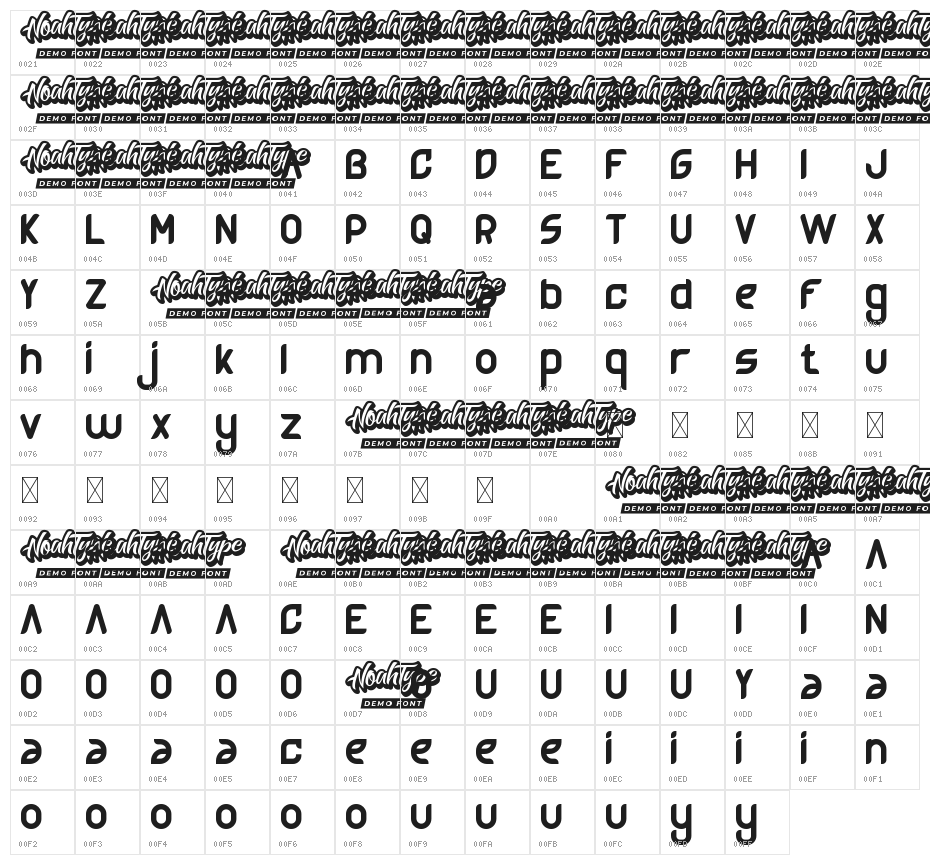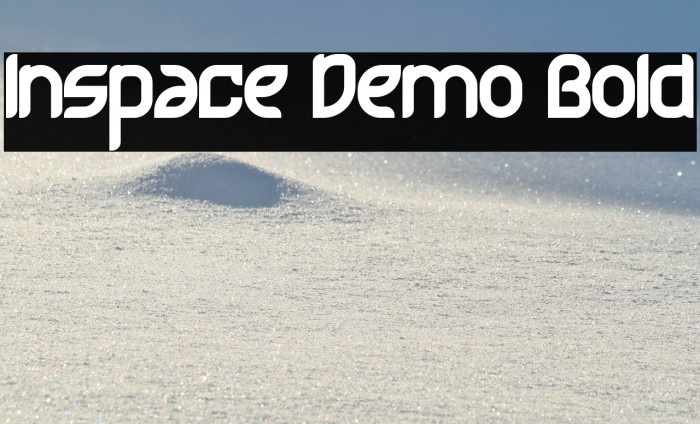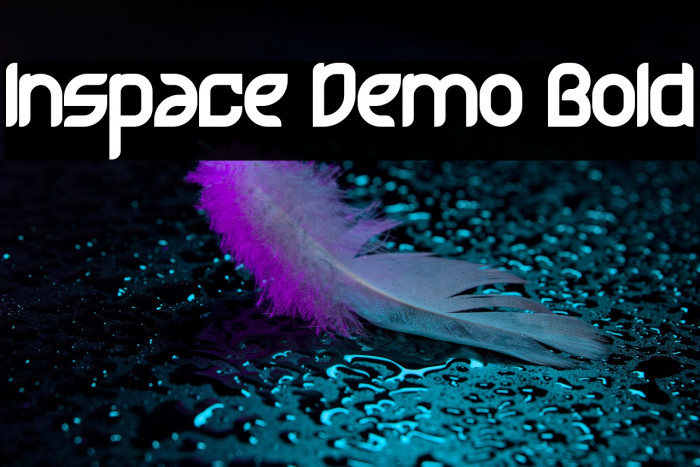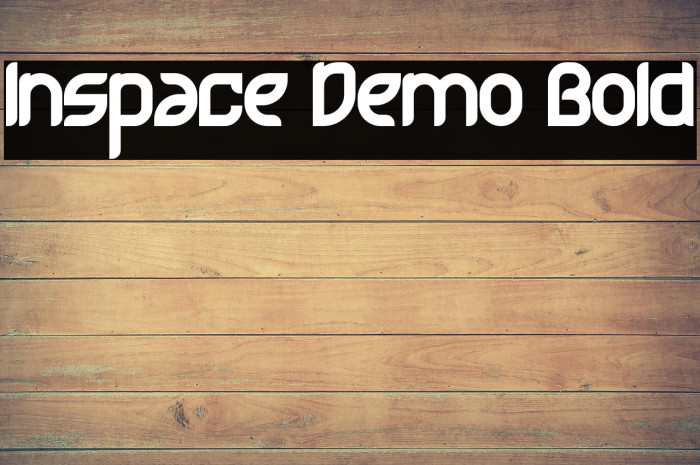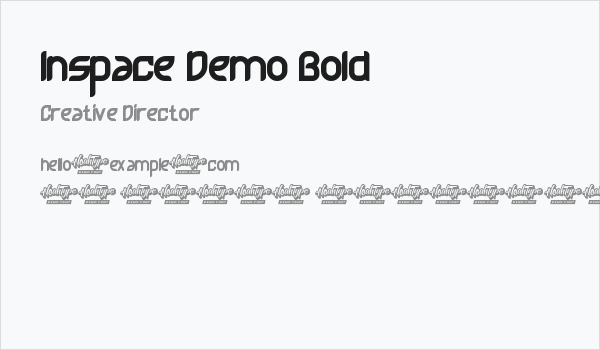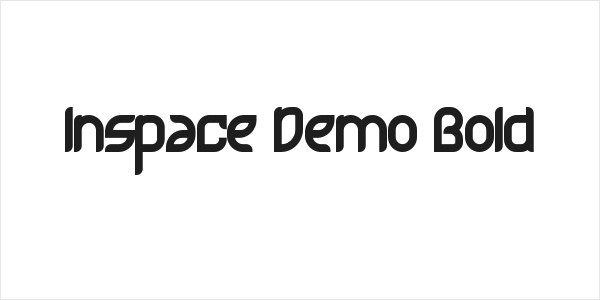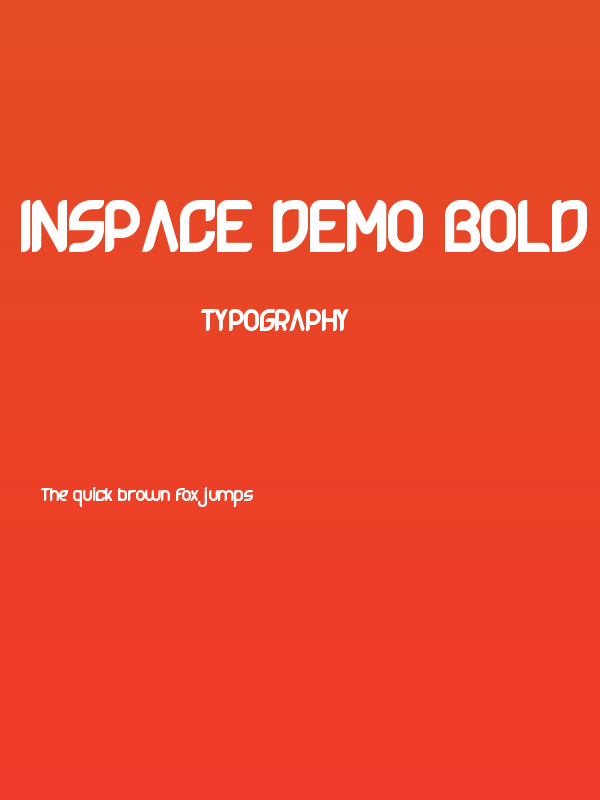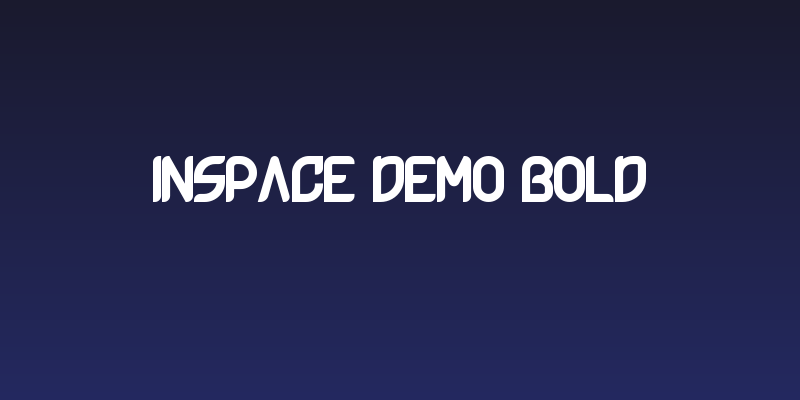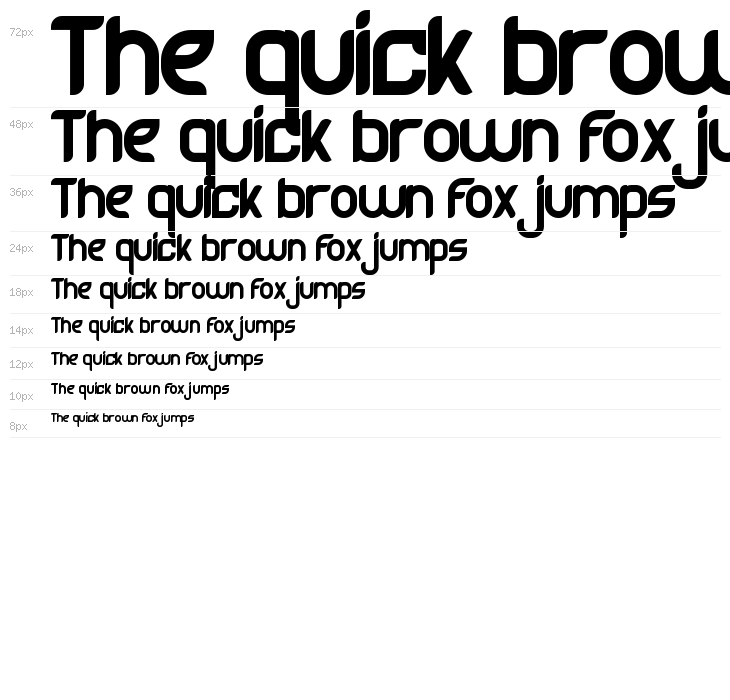
Inspace Demo Bold Font
Inspace Demo Bold Description
This font features a bold and futuristic design with smooth, rounded edges and a geometric structure. The uppercase letters are uniform in height, creating a cohesive and modern appearance. The lowercase letters maintain a similar style, with a slightly more playful and approachable feel. The numbers and special characters are consistent with the overall design, ensuring a seamless integration across different uses. The font's boldness and unique style make it stand out, while its clean lines and balanced proportions ensure readability.
| Proposed Projects | Ideal for technology branding, sci-fi themed projects, modern advertising, and innovative product packaging. |